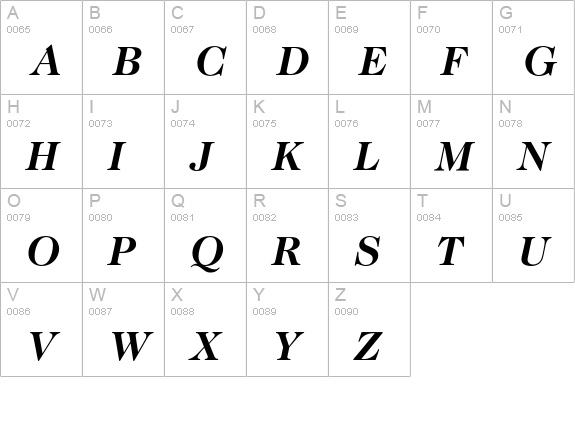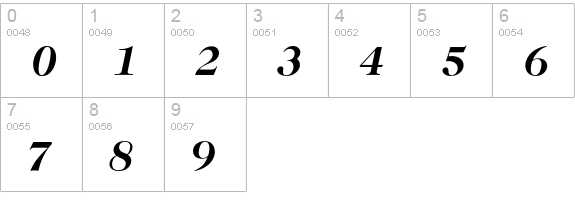
Caslon 224* Bold Italic Font Details
Caslon 224* Bold Italic is a strong, high-contrast, italic variant in the Caslon typeface family \xE2\x80\x94 well suited to headlines, attention-grabbing titles, and strong calls-to-action.
Caslon 224 Bold Italic is a timeless and elegant font that exudes sophistication and classic charm. Its bold and italicized design makes it perfect for adding a touch of drama and emphasis to your projects. The meticulously crafted letterforms showcase a perfect balance of traditional and contemporary elements, making it versatile for various design purposes. This font is a must-have for designers looking to make a statement with their typography. Whether you're working on a branding project, editorial design, or any other creative endeavor, Caslon 224 Bold Italic will elevate your work to the next level. Best of all, Caslon 224 Bold Italic is available for free download at FontsMarket.com. So why wait? Enhance your design arsenal with this stunning and impactful font today!